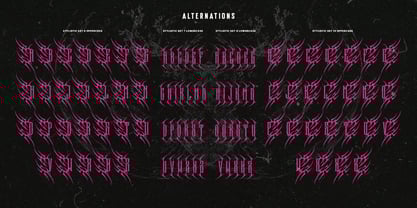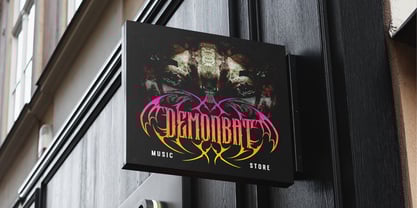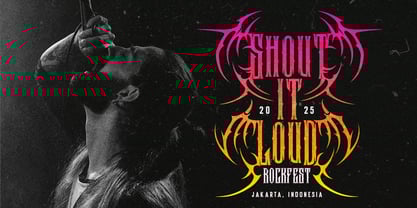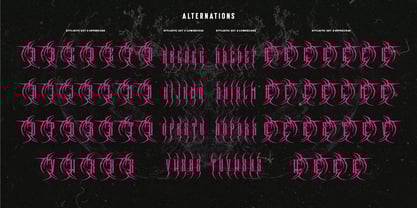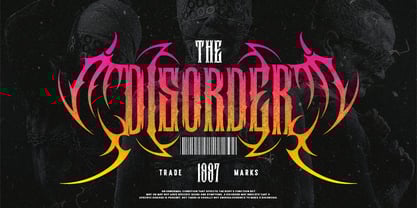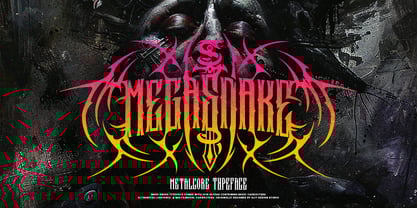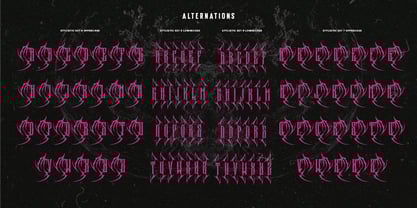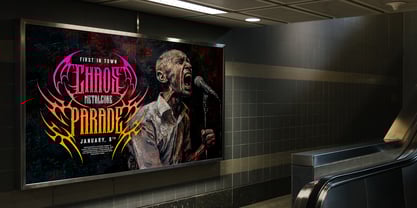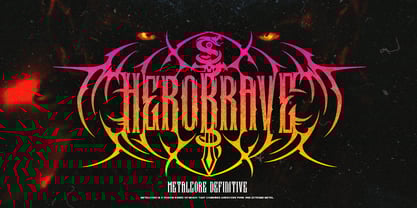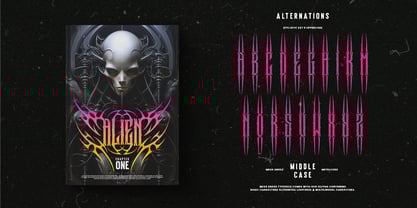
Mega Snake
by Alit Design
The Mega Snake Font Family was designed by Alit Suarnegara and published by Alit Design. Mega Snake contains 1 styles.
Unleash the venom of creativity with Mega Snake Typeface, a modern death metal-inspired font that strikes the perfect balance between intensity and readability. Designed for those who crave bold, dramatic aesthetics without sacrificing clarity, this typeface is the ultimate weapon in your design arsenal.
Key Features:
• Bold Design Elements:
Infused with thorns, wings, swords, snakes, and other fearsome motifs, Mega Snake Typeface embodies the spirit of death metal while maintaining an accessible design. Perfect for album covers, branding, apparel, and posters.
• Extensive Character Set:
Boasting 1,018 unique characters, this font equips you with everything you need to elevate your projects to the next level.
• Versatile Alternatives:
Dive into a sea of customization with many alternative characters to add a personal touch to every design.
• Dynamic Ligatures:
Unlock seamless connections between characters with an array of ligature options, delivering fluid and striking typography.
• Expressive Swashes:
Add dramatic flair and motion with swash elements, ideal for making headlines and focal points stand out.
• PUA Unicode Accessibility:
Enjoy full access to all glyphs with PUA Unicode, ensuring compatibility across design platforms.
• Multilingual Support:
Create impactful designs in multiple languages, thanks to the font's comprehensive multilingual support.
Why Choose Mega Snake Typeface? Mega Snake Typeface is more than a font—it's a statement. Whether you're designing for metal bands, fantasy projects, or edgy brands, this typeface delivers a modern, sinister vibe that's impossible to ignore. Its intricate details and broad features make it a go-to for designers who demand both style and substance.
Perfect For:
• Death metal album covers
• Event posters and flyers
• Logo designs
• Merchandise and apparel
• Book covers and gaming graphics
Command attention and inject your designs with a venomous bite. Mega Snake Typeface—where fear meets function.